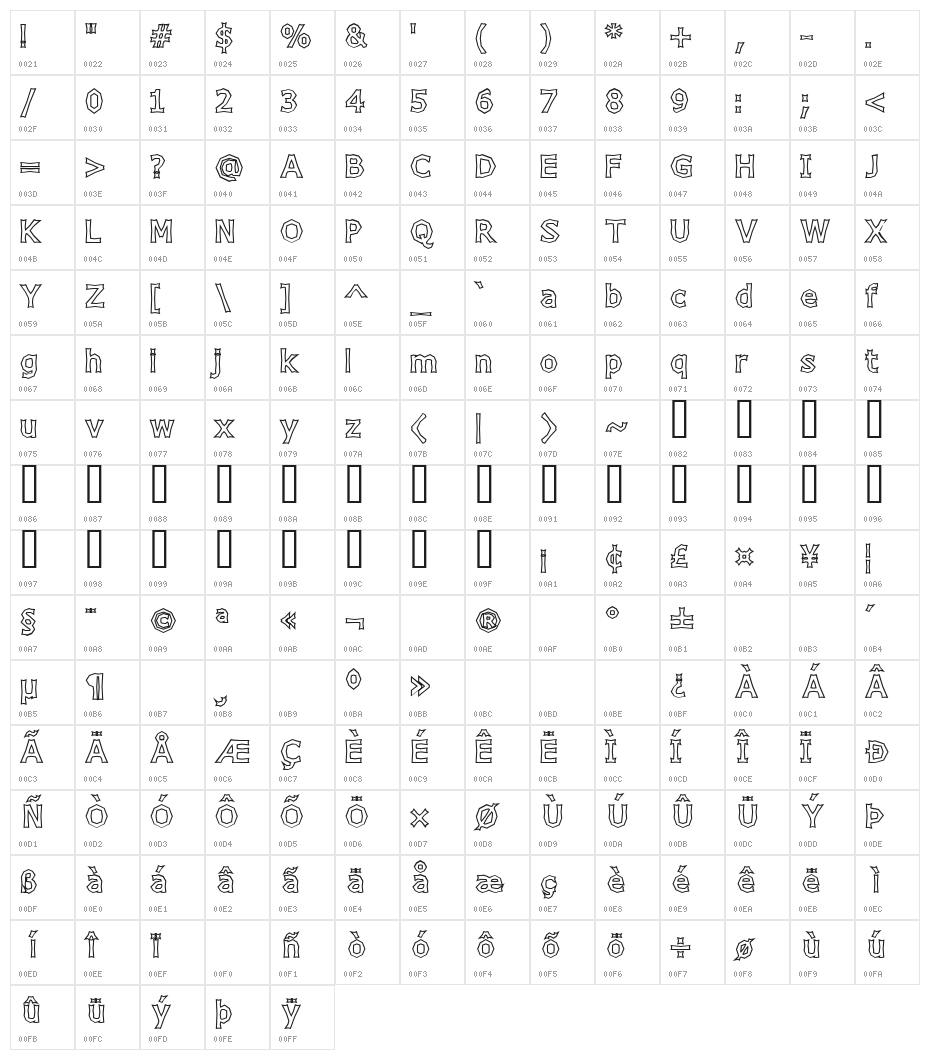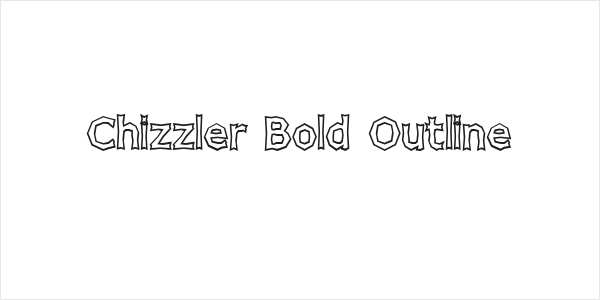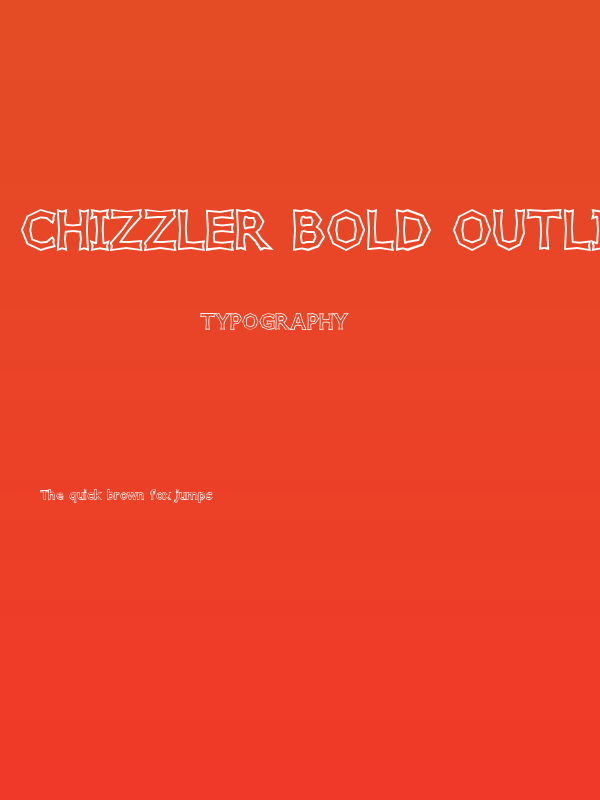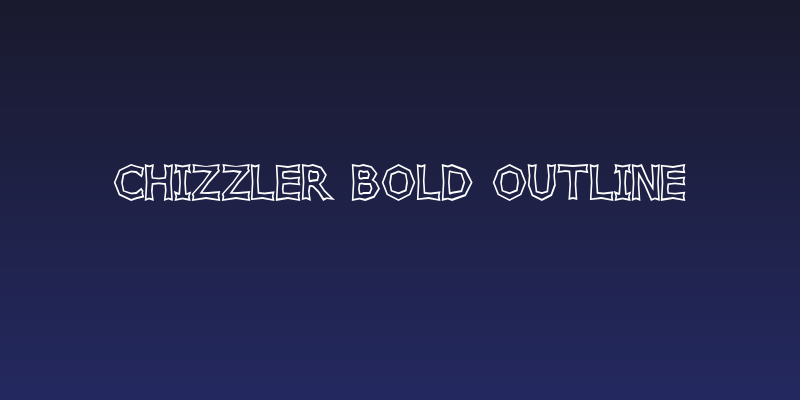
Chizzler Bold Outline Font
Chizzler Bold Outline Description
This font features a bold, outlined style with a rugged, hand-drawn appearance. The characters are defined by thick, irregular strokes that create a sense of movement and energy. The uppercase and lowercase letters maintain a consistent height, while the numbers and special characters follow the same bold outline design. The font's unique style makes it stand out, with each character appearing as if it has been carved or chiseled, adding to its distinctive look. This font is ideal for projects that require a strong, impactful visual presence.
Proposed ProjectsIdeal for posters, logos, and branding materials that require a strong visual impact.